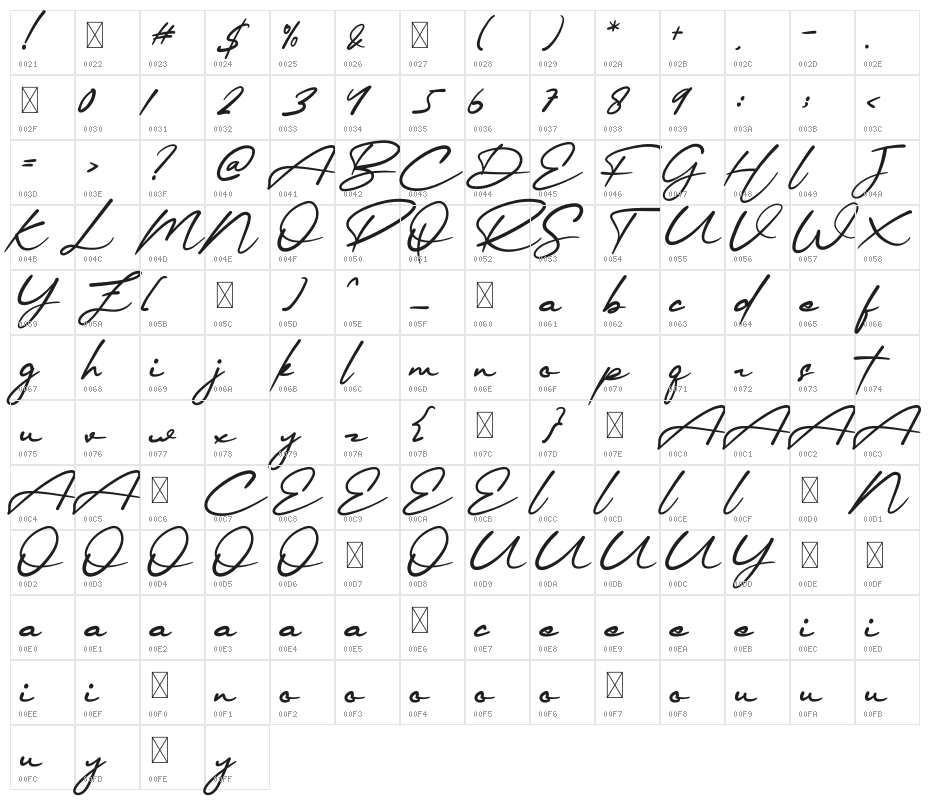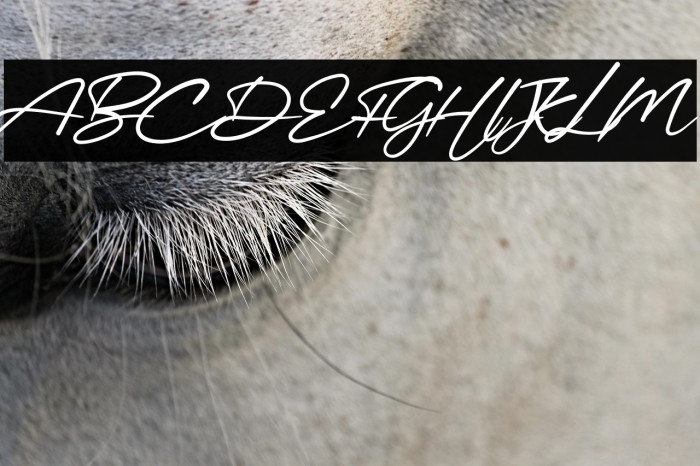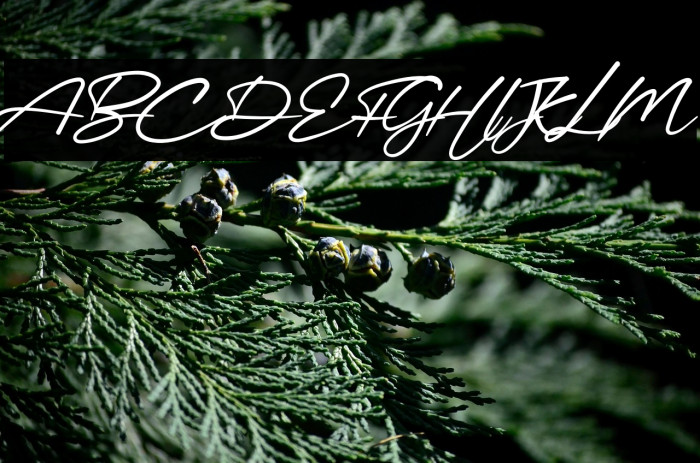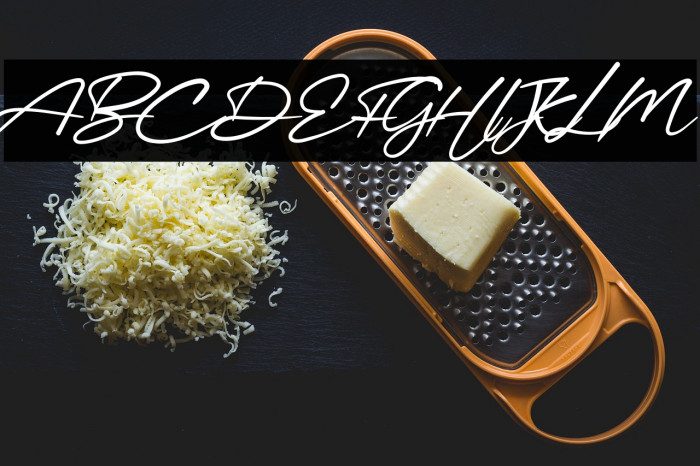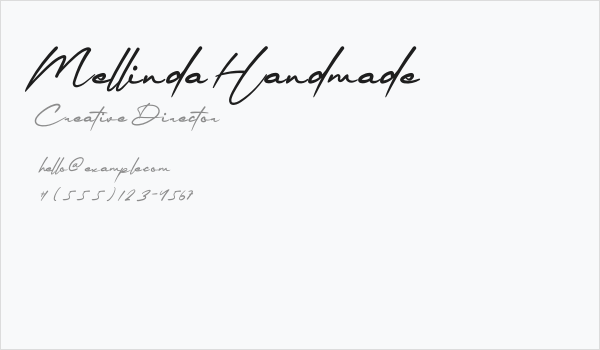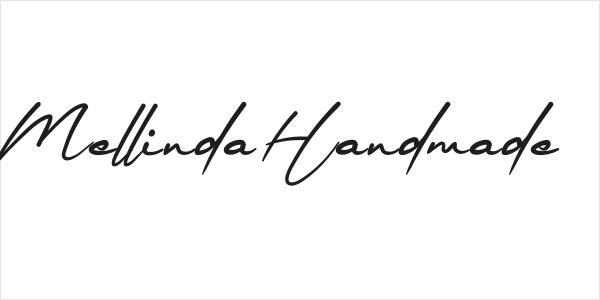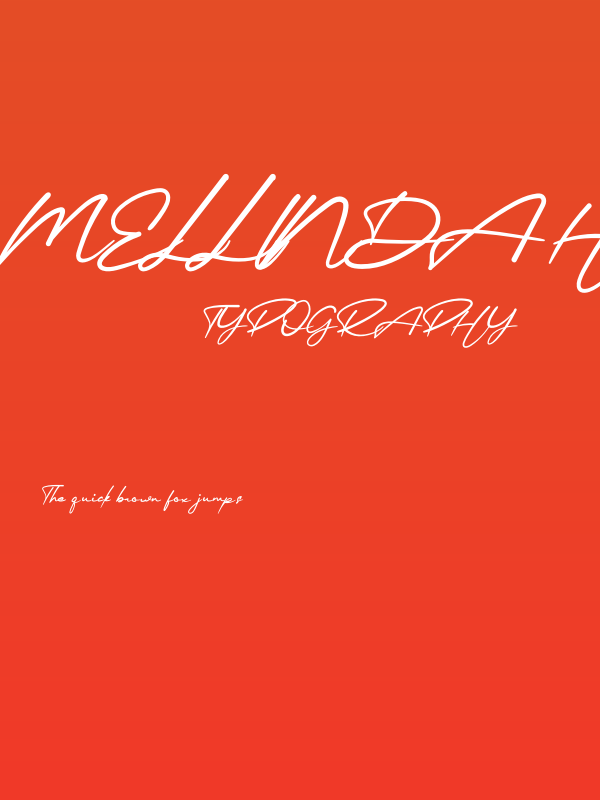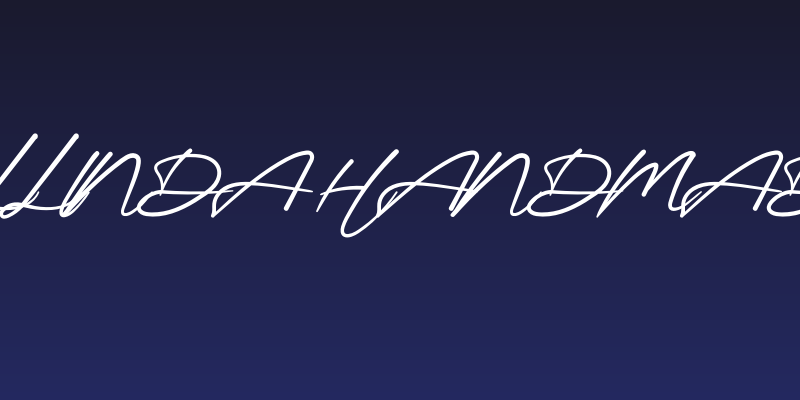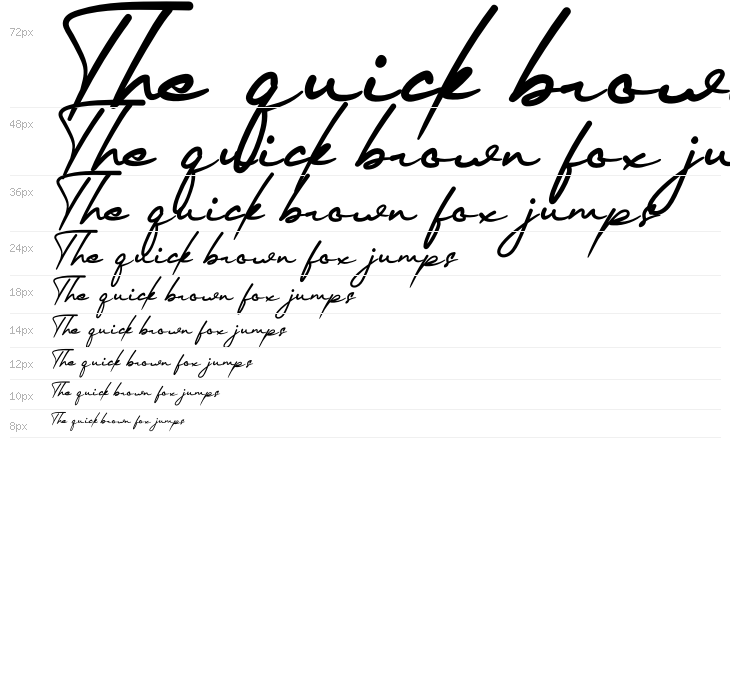
Mellinda Handmade Font
Mellinda Handmade Description
A flowing, cursive script font with a handwritten style, featuring smooth, connected strokes and a casual elegance.
| Use Case | Logos, Headlines, Personal notes |
| Proposed Projects | Invitations, greeting cards, personal branding. |